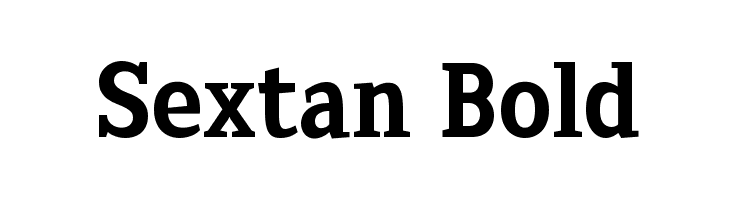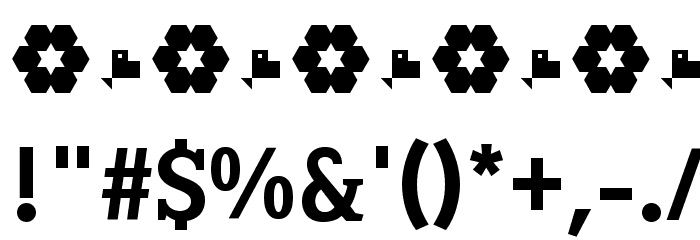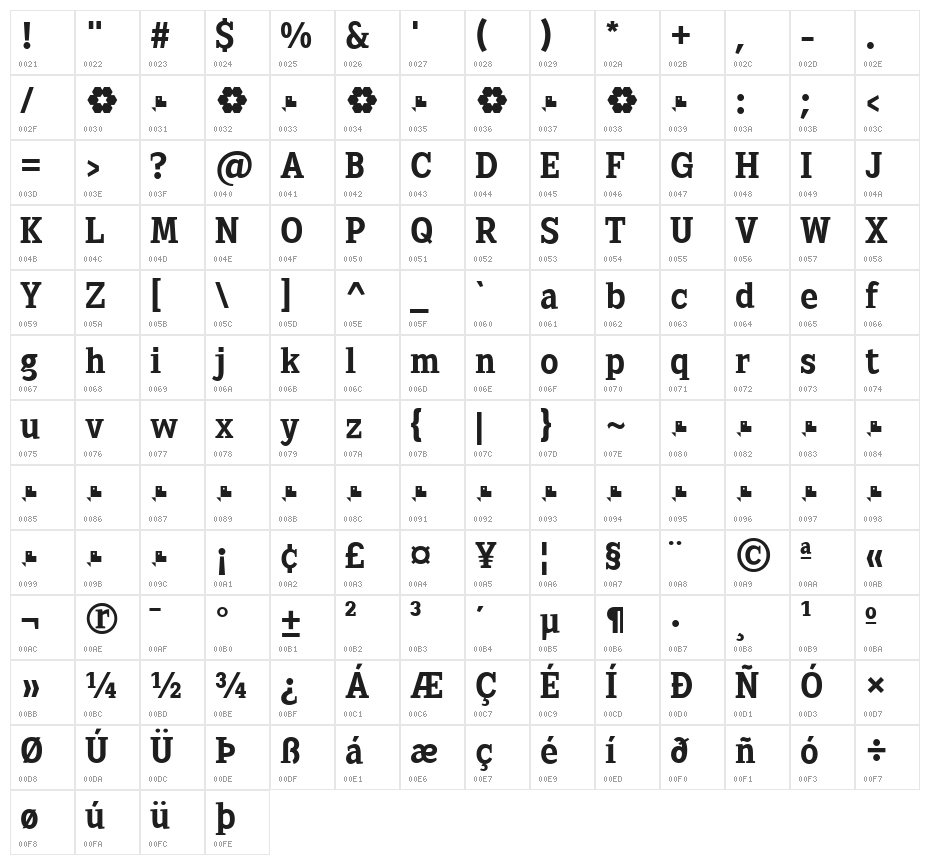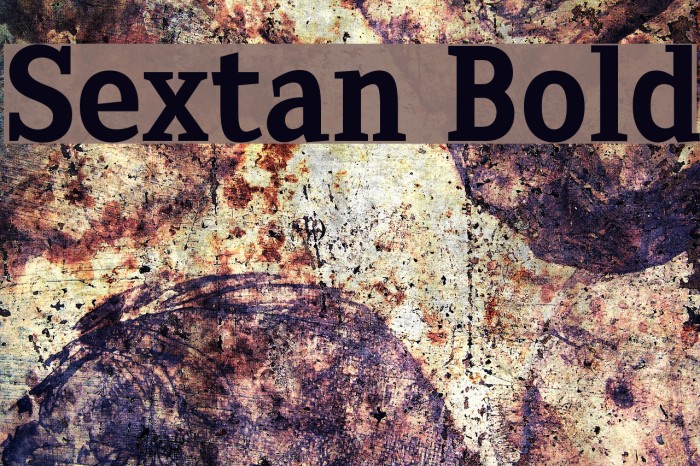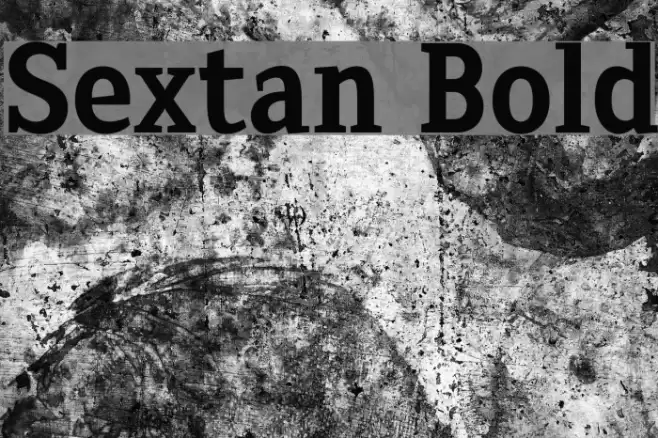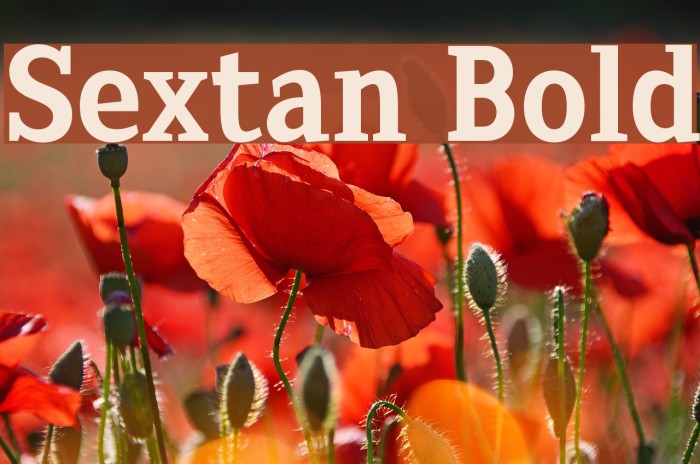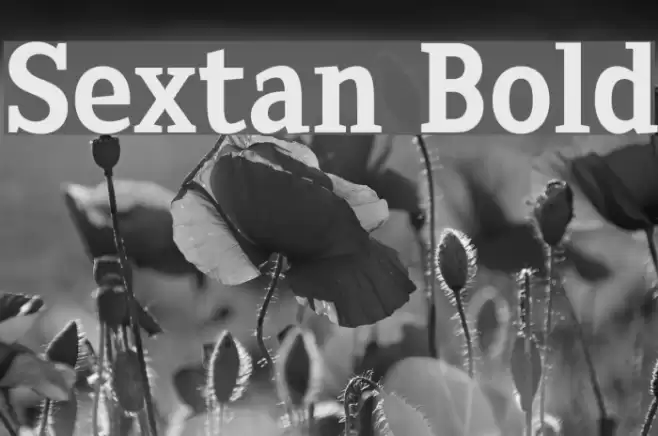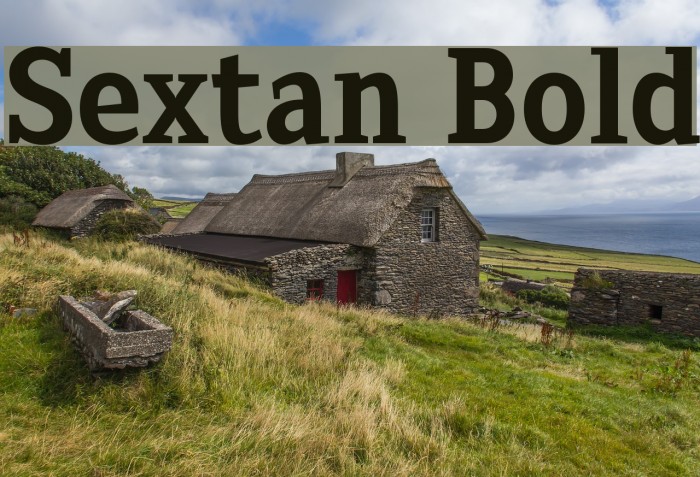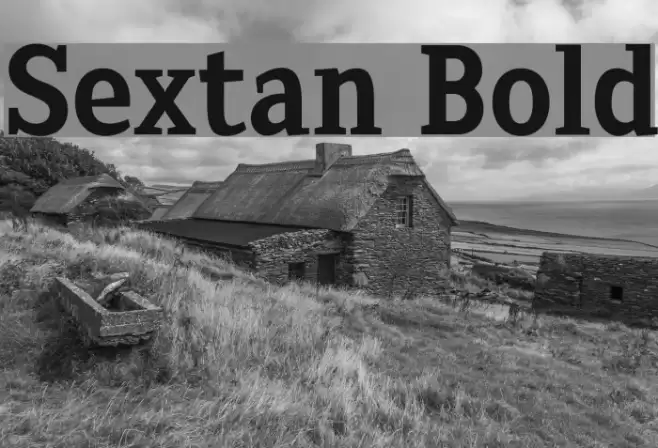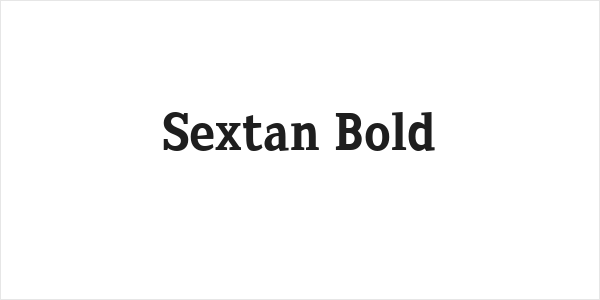
Sextan Bold Font
Sextan Bold Description
This font exhibits a bold and commanding presence with its thick, sturdy strokes and strong serifs. The uppercase letters are particularly striking, with a robust and authoritative feel that demands attention. The lowercase letters maintain a consistent weight, ensuring readability while still conveying a sense of strength. The numbers are equally bold, making them ideal for impactful displays. Special characters are well-defined, adding versatility to the font's usage. Overall, this font's boldness and clarity make it suitable for a variety of design applications where emphasis and readability are key.
| Proposed Projects | Ideal for headlines, posters, branding materials, and any design requiring a bold statement. |